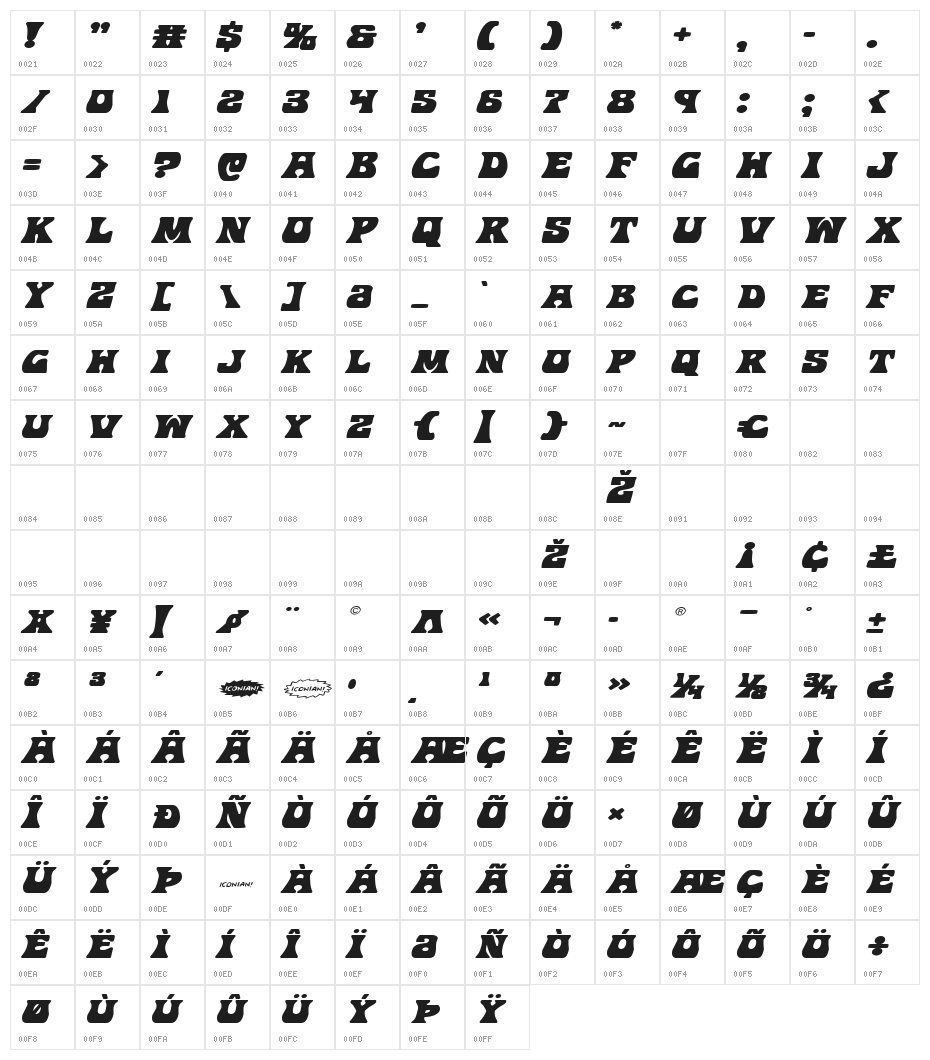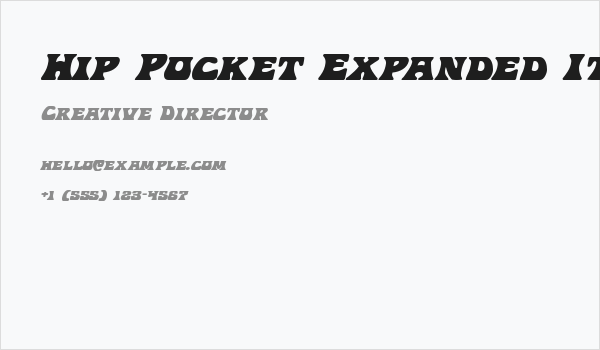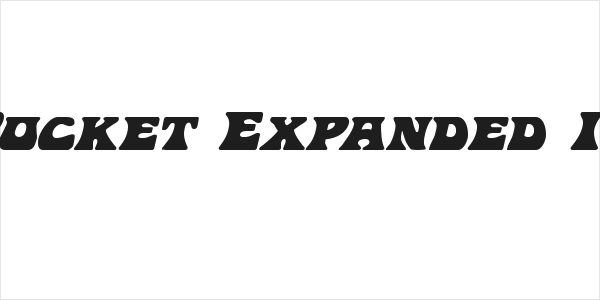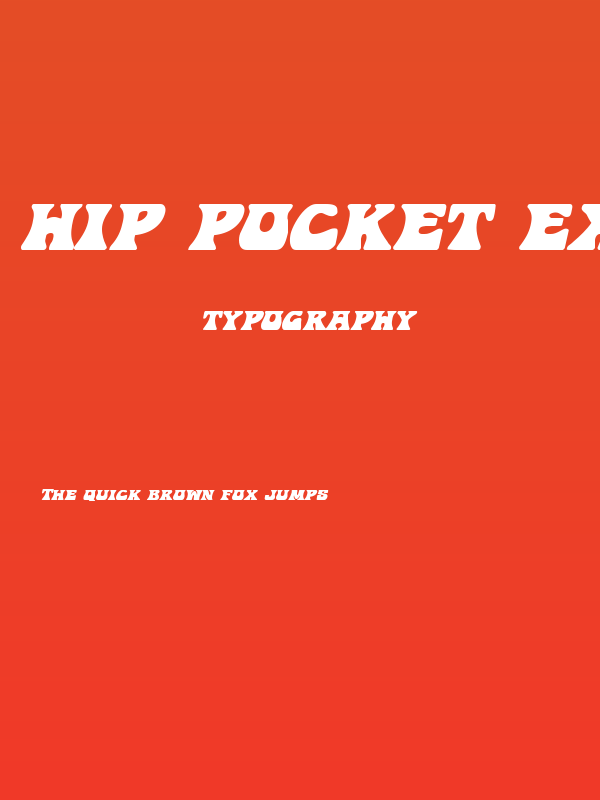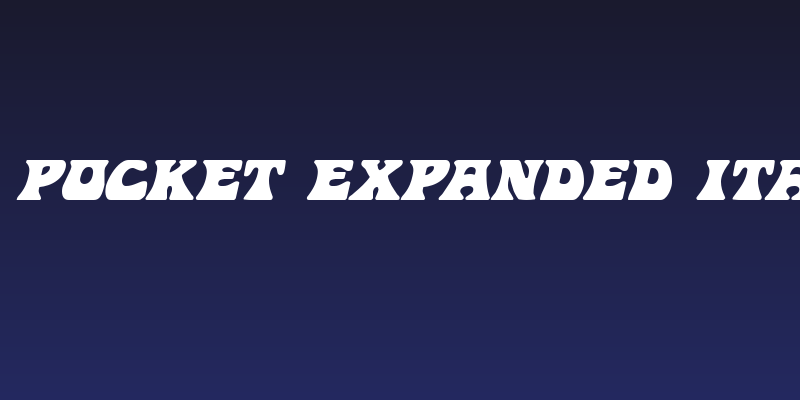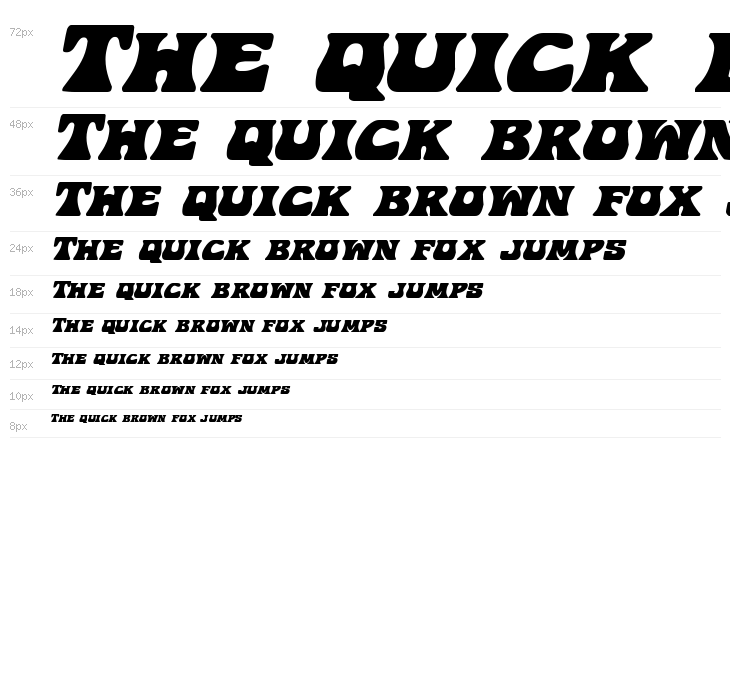
Hip Pocket Expanded Italic Font
Hip Pocket Expanded Italic Description
This font features a bold and dynamic style with a distinct italic slant, giving it a sense of movement and energy. The characters are expanded, providing a wide and impactful appearance. The strokes are thick and consistent, contributing to a high contrast between the filled areas and the negative space. The design is playful yet assertive, making it suitable for attention-grabbing headlines and creative projects. Its unique style combines elements of both modern and retro aesthetics, offering versatility in various design contexts.
| Overall Style | Modern, Retro |
| Proposed Projects | Ideal for posters, logos, branding, and any project requiring a bold statement. |